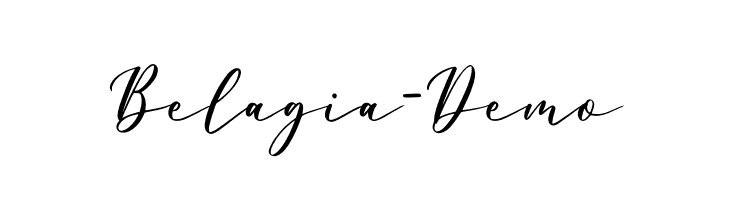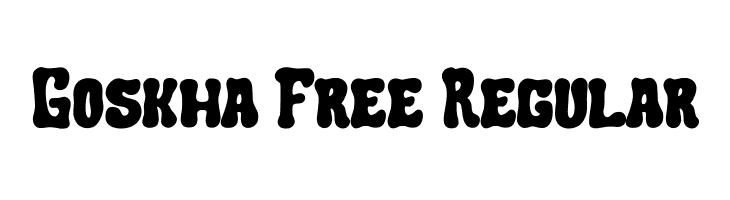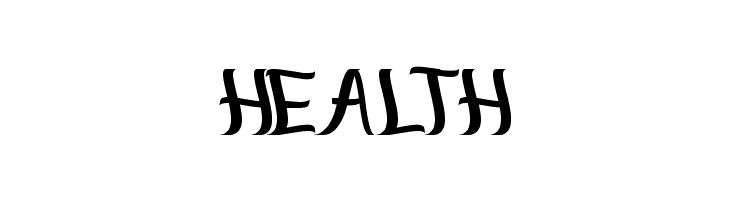
A bold, playful font with rounded, bubbly characters ideal for retro or whimsical designs.
A bold, extra-condensed font with thick strokes and a modern, geometric style.
A bold, geometric font with a futuristic and industrial style.
A modern, artistic font with elegant curves and a slight italic slant.
An ornate, decorative font with intricate floral embellishments.
A playful, handwritten-style font with fluid, curvy lines and a whimsical feel.
A bold, brush-style font with dynamic strokes and a playful, modern feel.
A bold, rounded font with a playful and modern style.
A cursive, handwritten font with elegant loops and fluid strokes.
A bold, textured font with a graffiti-like, hand-painted style.